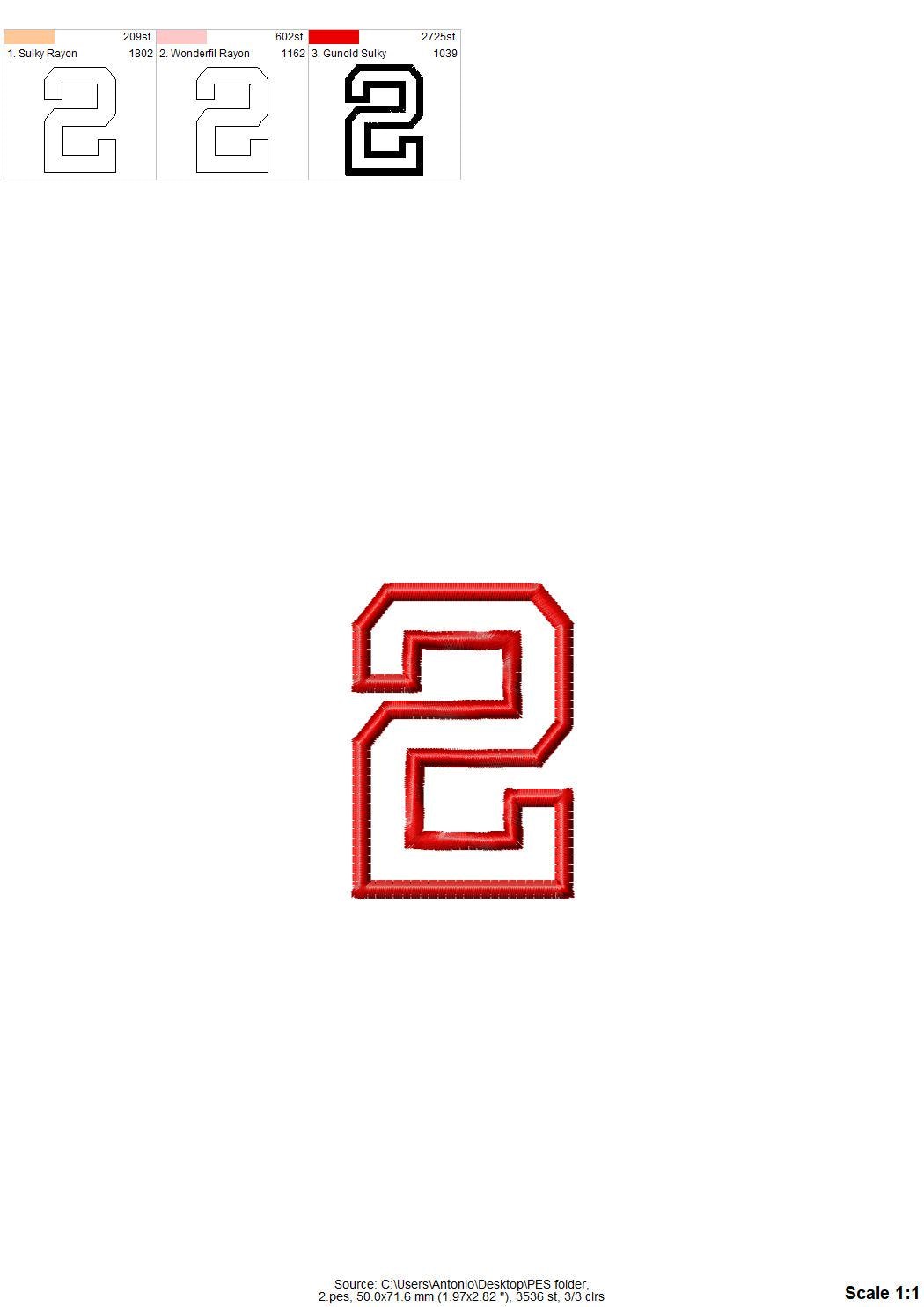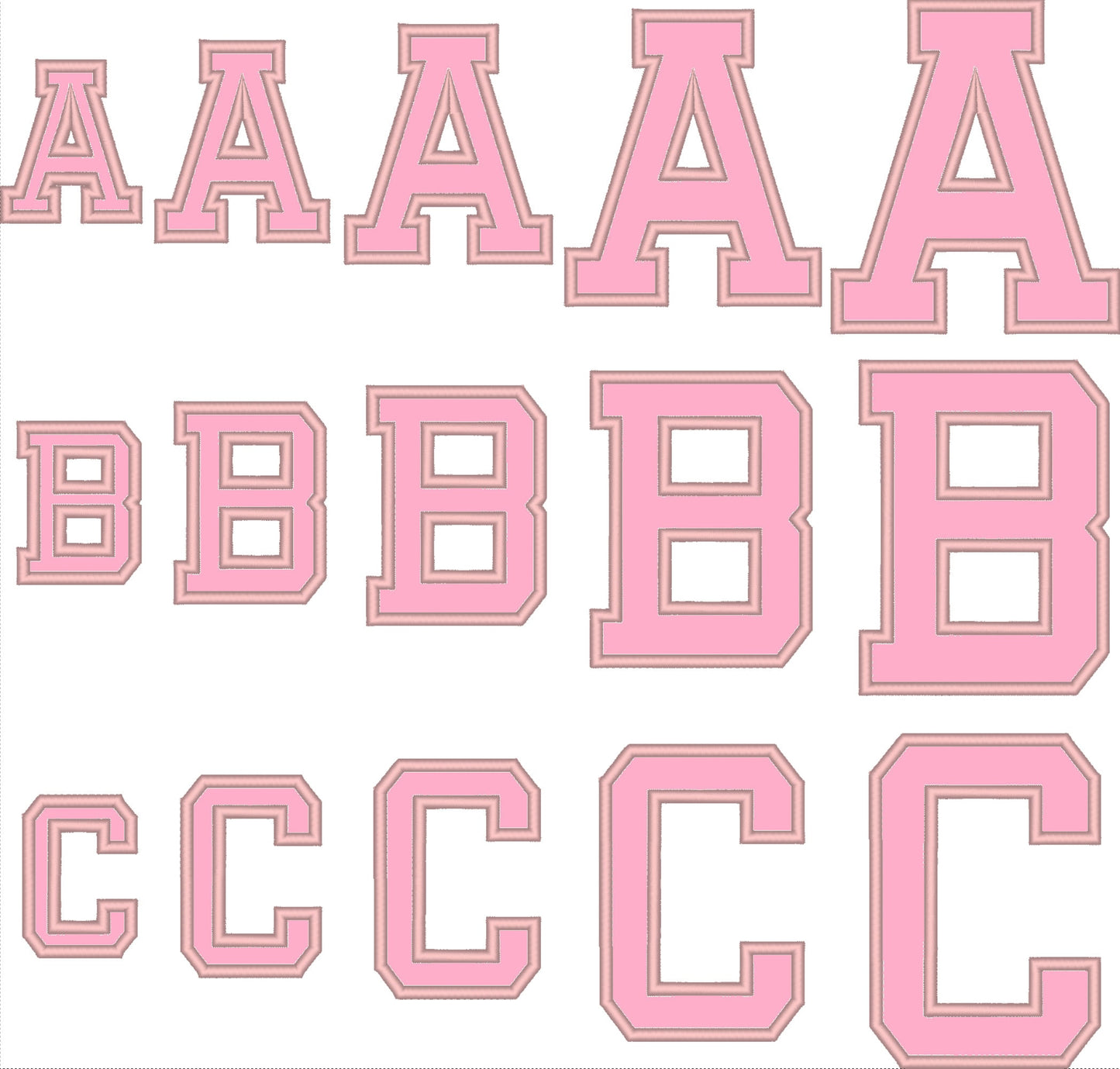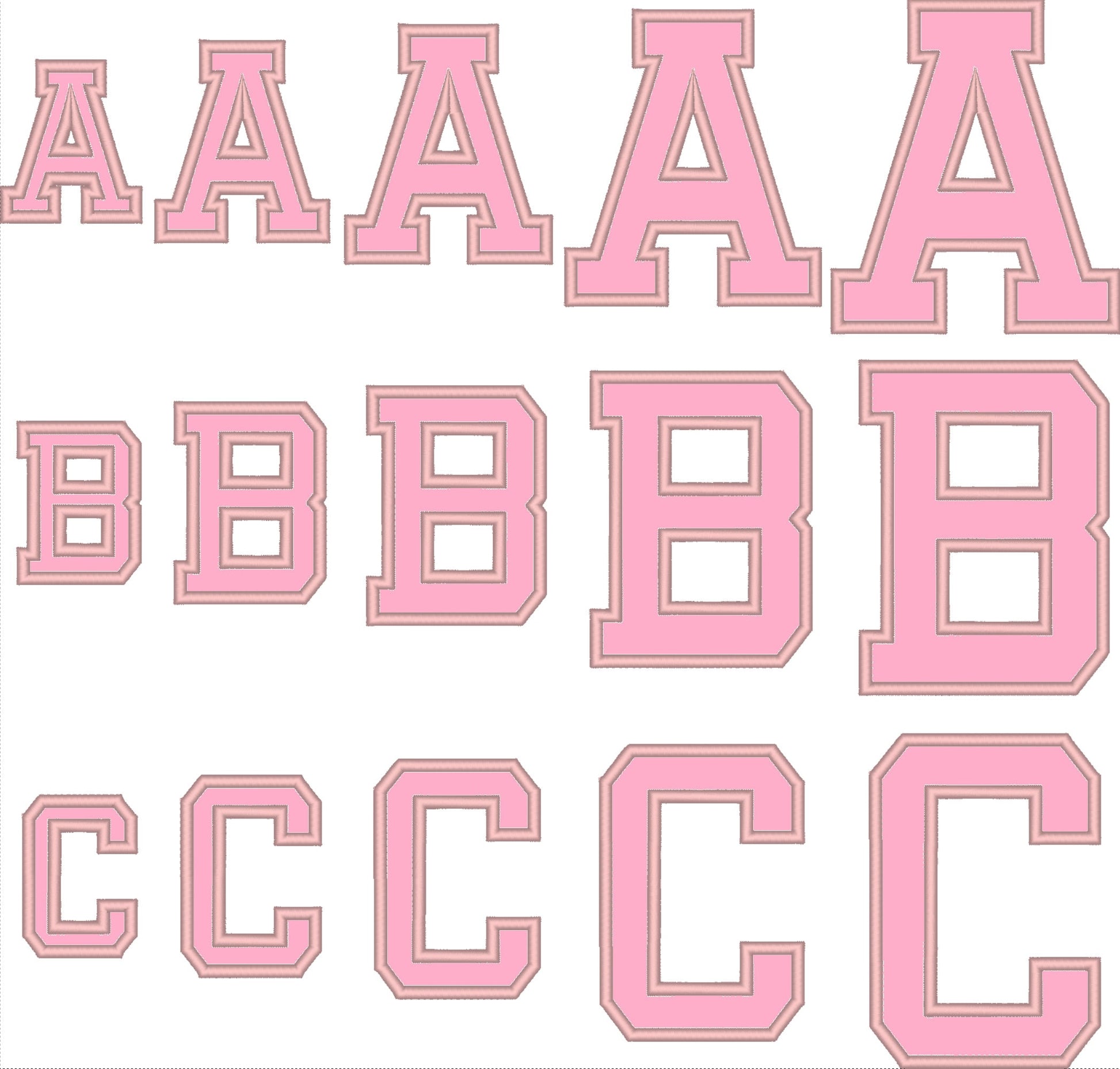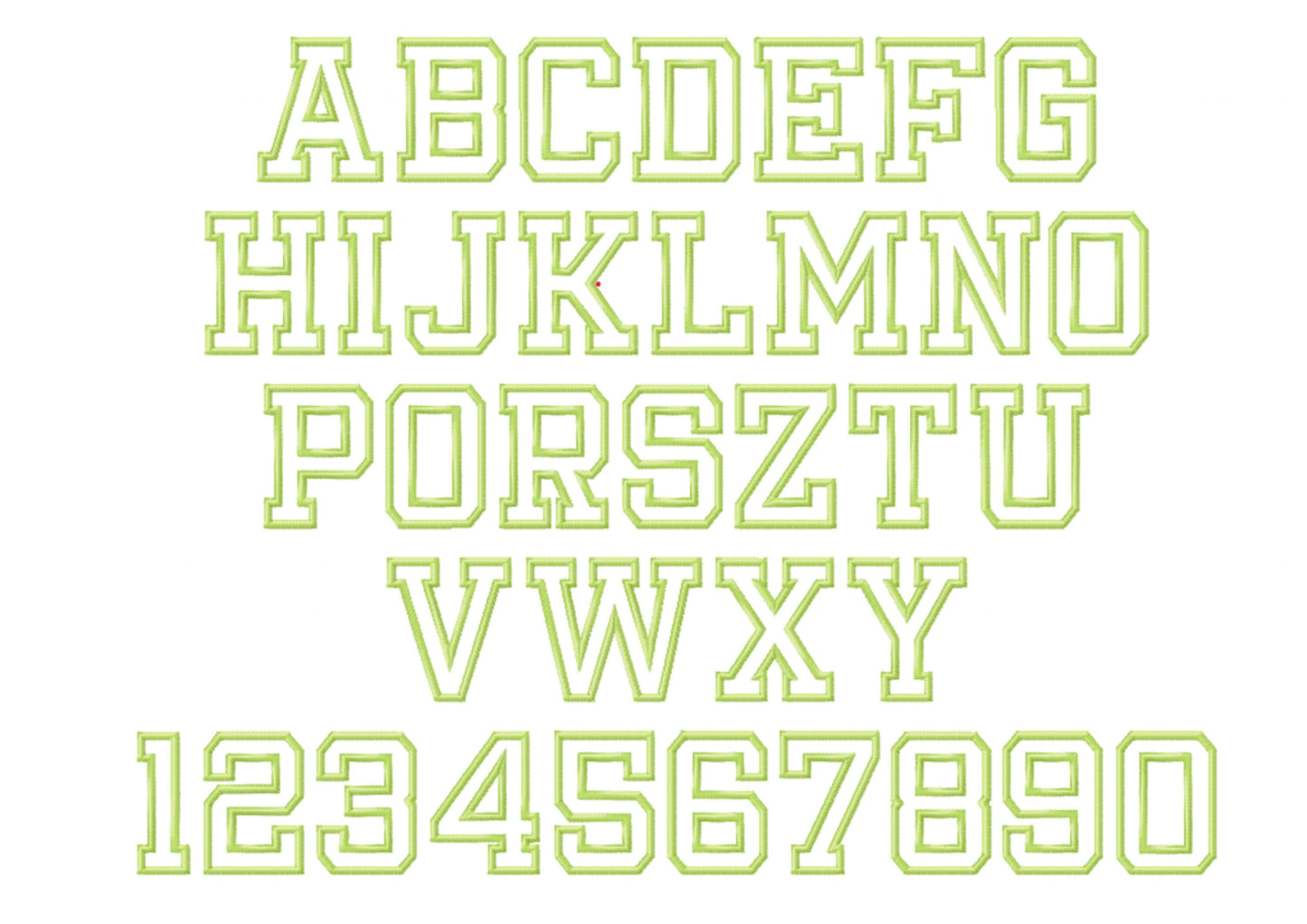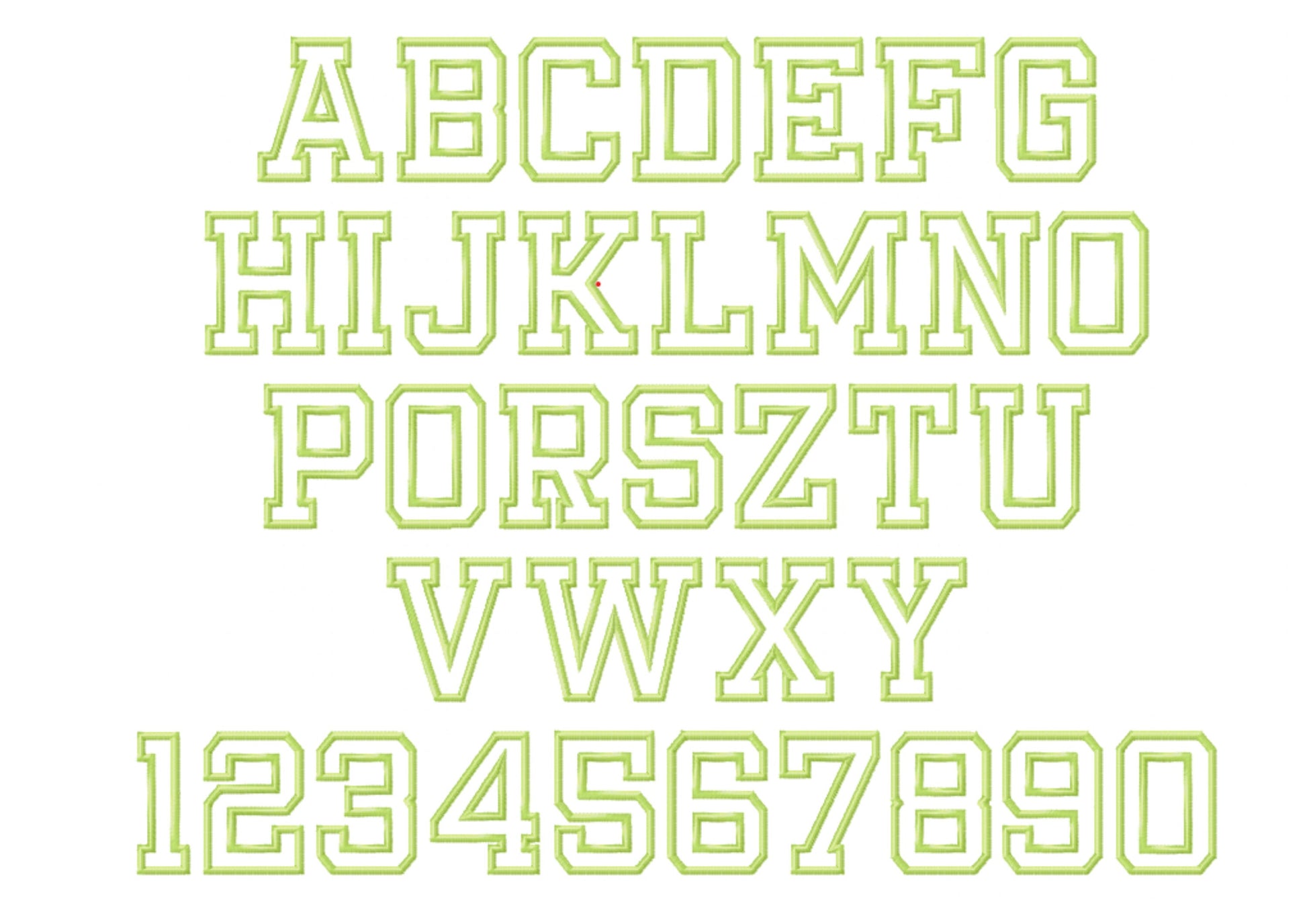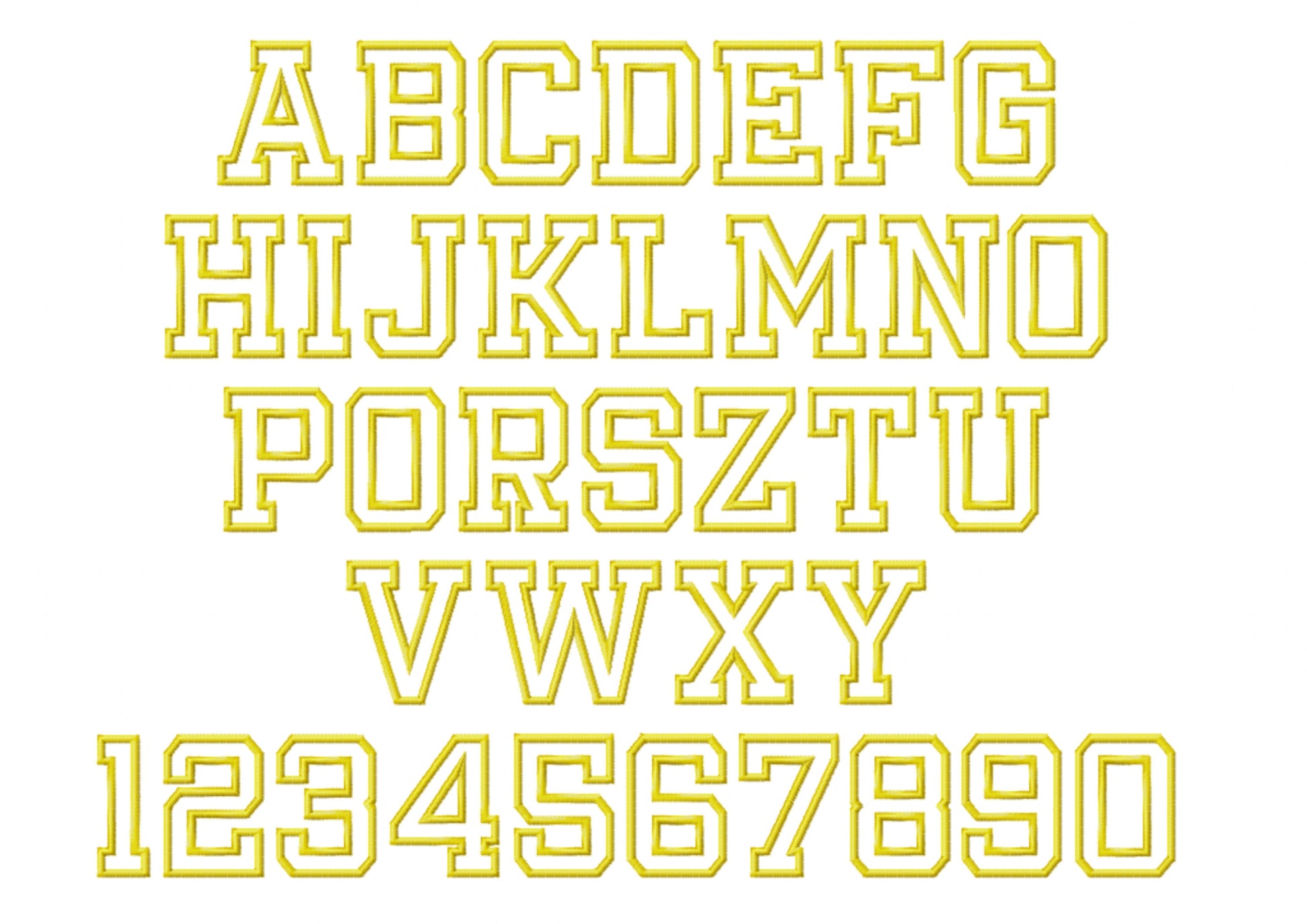
Varsity Athletic Sport High School Font
A varsity athletic applique font with a wide satin outline, for team names and numbers on jerseys, hoodies and bags.
Capital letters A to Z and numbers 0 to 9 in five sizes: 2, 2.5, 3, 3.5 and 4 inches. The wide satin edge keeps the applique neat.
• Varsity athletic applique font
• Uppercase A-Z and numbers 0-9
• 5 sizes, 2 to 4 in